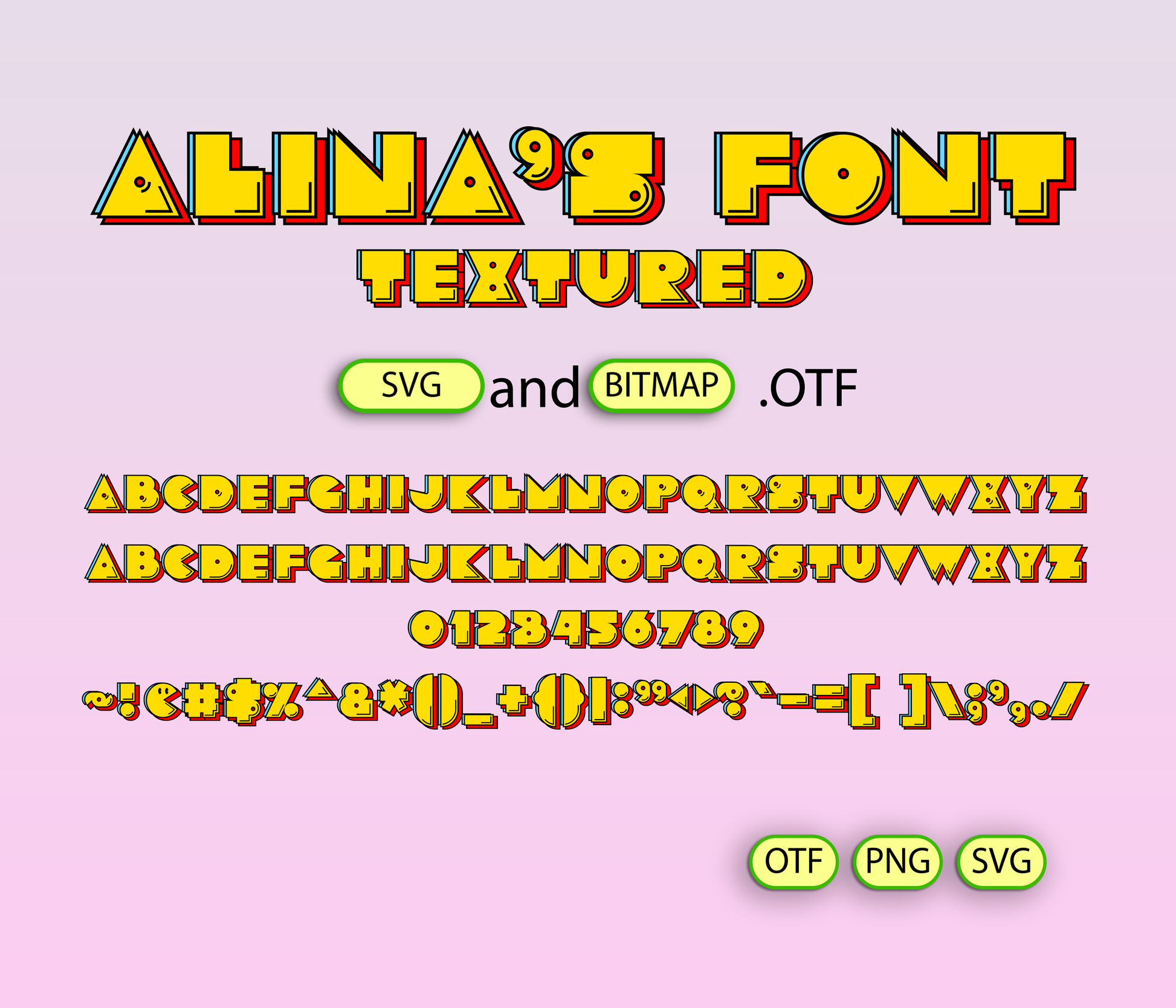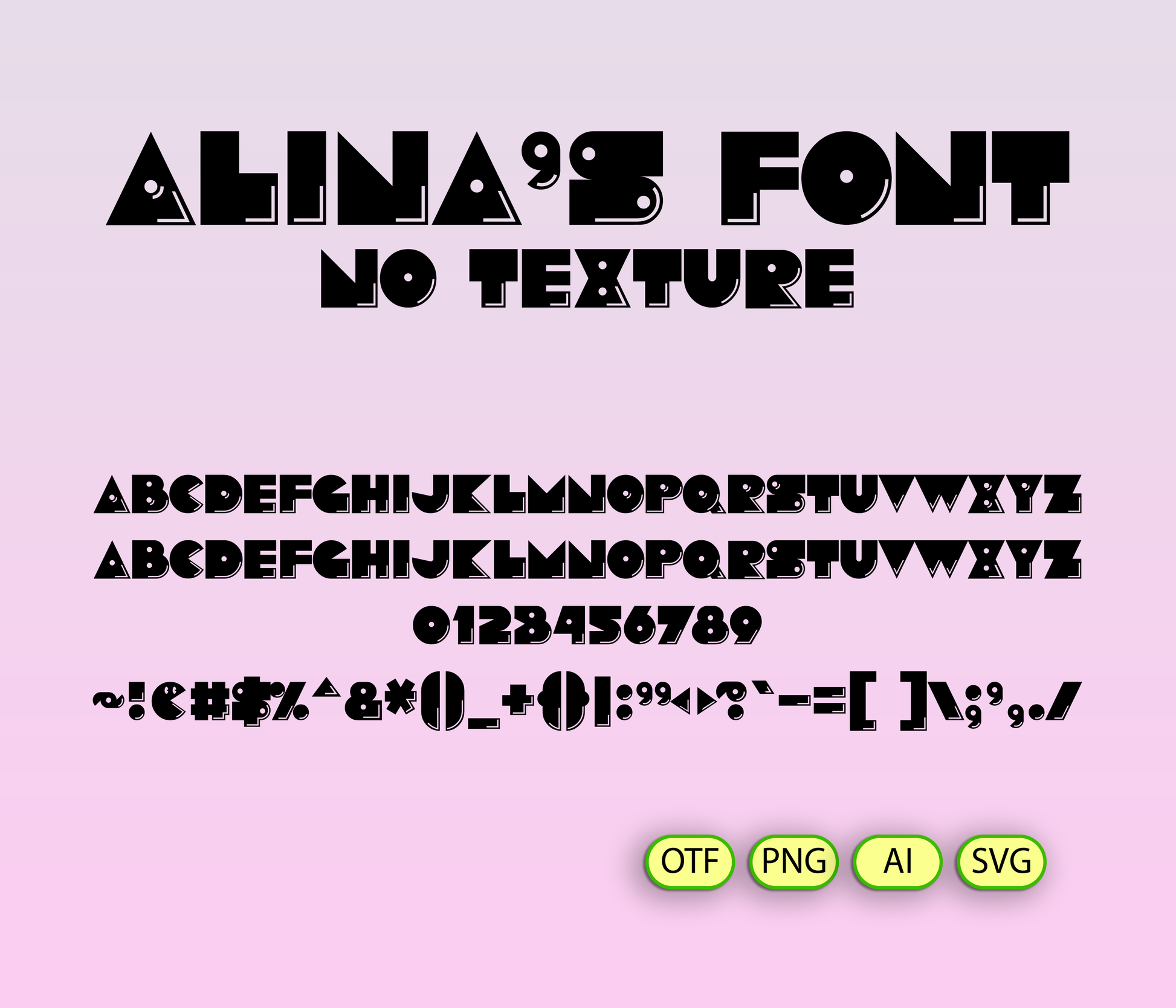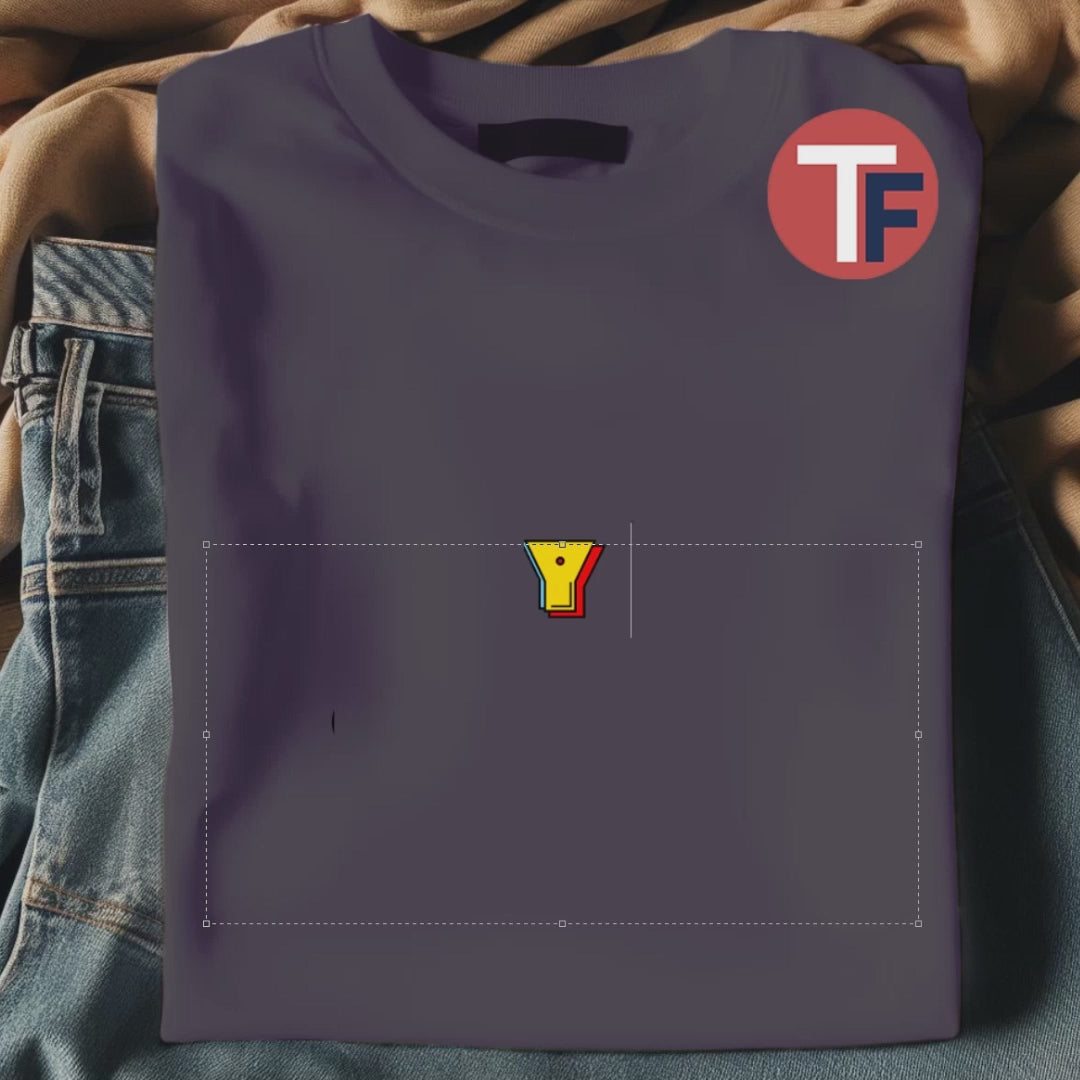
Arcade Classic Retro Font Textured
Capture Retro Fun with the Arcade Classic Font
Step into the nostalgic world of arcade gaming with our Arcade Classic-inspired font. Perfect for fans, event planners, and designers looking to infuse their projects with the playful and iconic spirit of one of the most beloved video games of all time, this font brings the vibrant and dynamic energy of classic arcade games to your designs. Whether creating event invitations, themed merchandise, or digital content, our Arcade Classic font ensures your projects resonate with the fun and excitement of the retro arcade era.
Our Arcade Classic-inspired font features bold, rounded characters and playful lines that reflect the energetic and whimsical style of the game. This versatile font is ideal for a variety of applications:
To ensure maximum usability and flexibility, our Arcade Classic-inspired font includes both textured and non-textured variants. The non-textured version ensures compatibility with all types of software, including Canva. This feature allows users of all skill levels to seamlessly incorporate the font into their designs, enhancing accessibility and ease of use across various digital and print platforms.
Our Arcade Classic font not only pays homage to the legendary game but also empowers you to infuse your designs with its lively and playful spirit. Whether crafting promotional materials, designing unique merchandise, or adding a retro touch to personal projects, this font allows you to communicate with the nostalgic and fun energy that defines classic arcade games. Ready to bring the excitement of the arcade to your creative projects? This font is your key to unlocking a world of colorful and dynamic design.